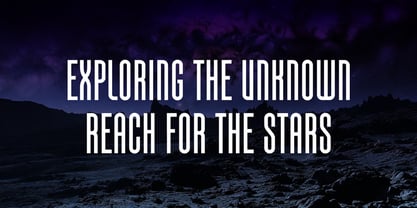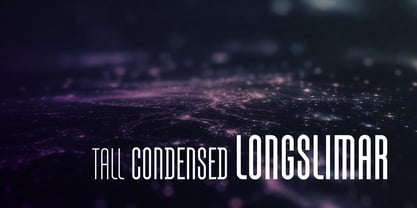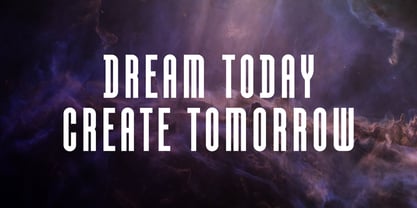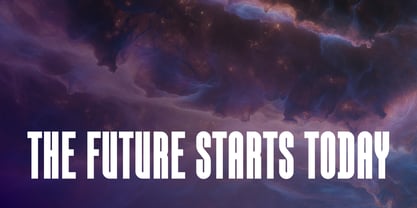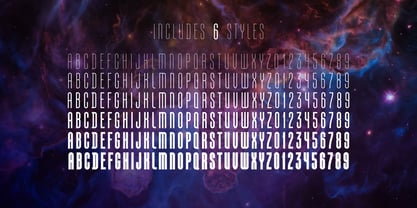
Longslimar
La familia tipográfica Longslimar fue diseñada por Maryna Fomina y publicada por Marooshka Type. Longslimar contiene 6 estilos y opciones de paquete familiar. Más información sobre esta familia
Longslimar a trendy long font that adds a restraint to your designs. With its tall and slim style, Longslimar is perfectly suited for various applications such as modern packaging, labels, and cool logos. Discover this versatile font. Its uniqueness is in optimized proportions and stroke variations, providing flexibility for logo design without losing clarity. The modular structure allows easy character adjustments for custom shapes. Functionally, it includes six styles: Light, Book, Medium, Regular, Bold, Black. Use it in identity systems, print collateral, digital interfaces, environmental graphics, or merchandise. This font prioritizes precision for memorable visual identities, serving as an efficient tool for designers.